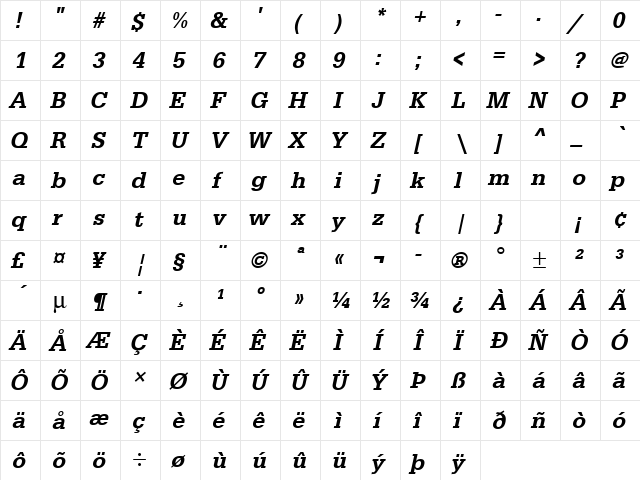
URWEgyptienneTMedNar Oblique
Design Context for URWEgyptienneTMedNar Typeface
URWEgyptienneTMedNar takes a measured approach to typography — its balanced proportions and neutral character make it a reliable workhorse for both digital and print work. Its italic angle brings a sense of urgency and motion to the letterforms.
Pro Tip: Use URWEgyptienneTMedNar for emphasis, pull quotes, and subheadings where its slanted energy can add rhythm to the layout.